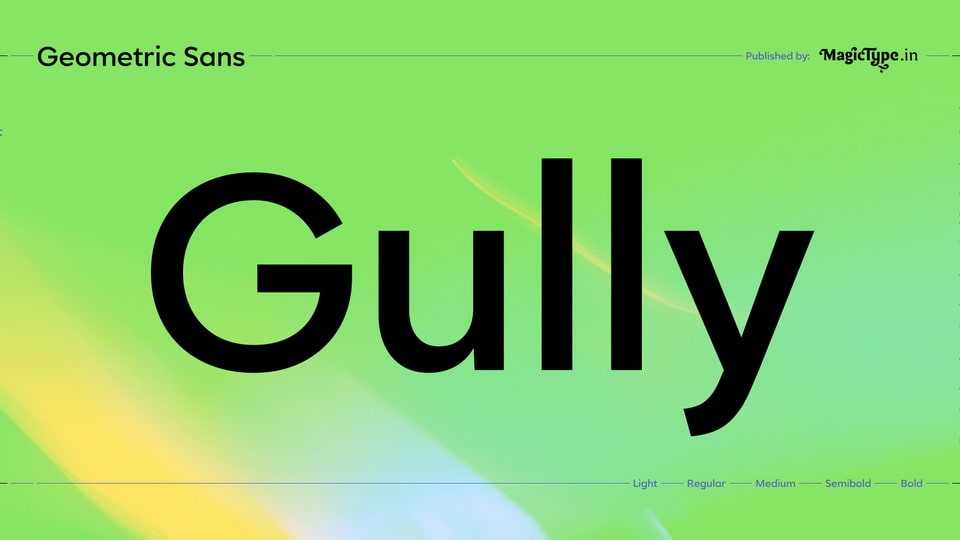
Gully Sans Font Family › Fontesk – Fonte Grátis
Download Gully font, a low-contrast geometric typeface. Glyphs have large x-height, higher ascenders than the cap height, dynamically angled sharp cuts at the terminals and optically corrected geometric closed counters.